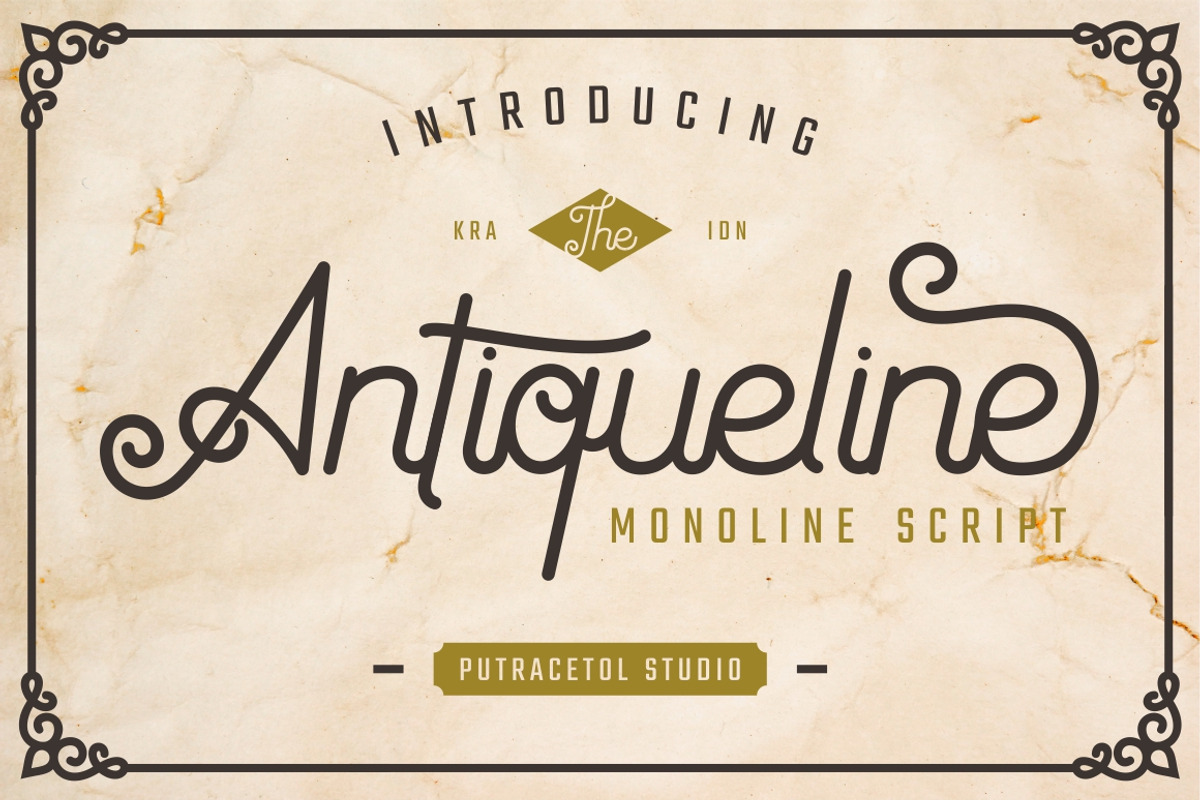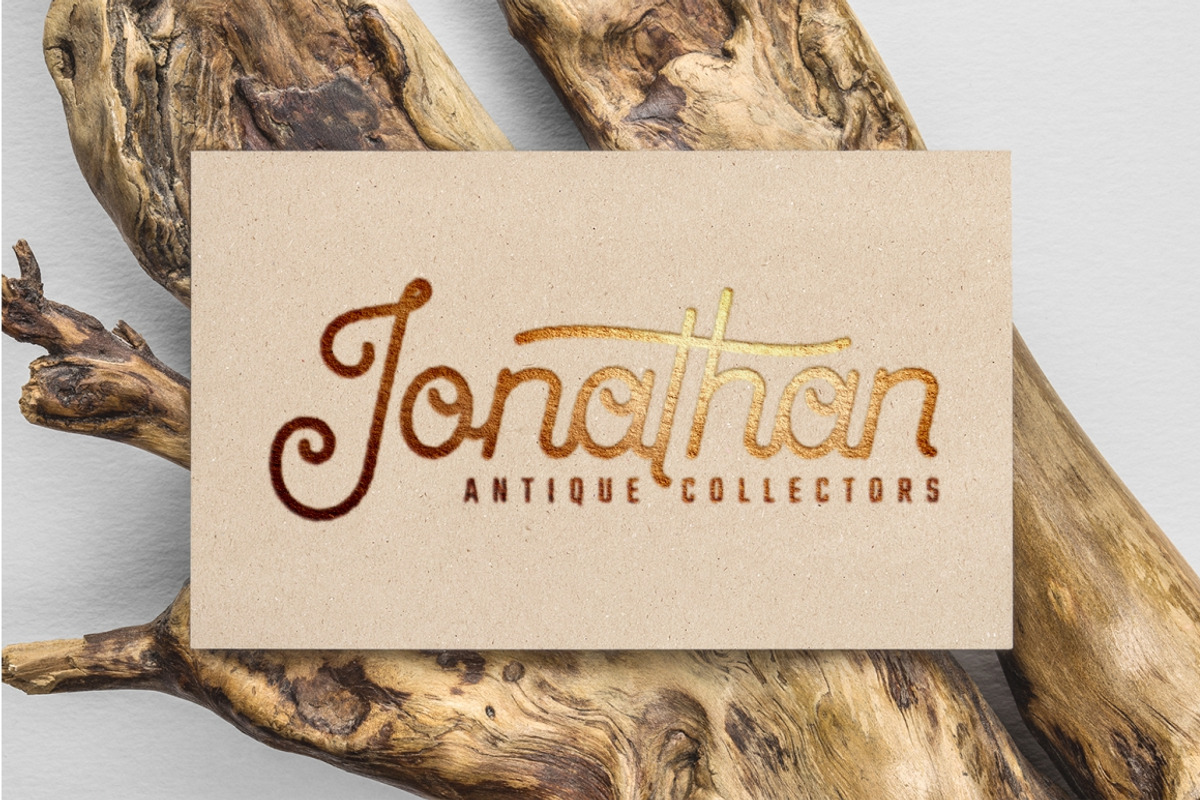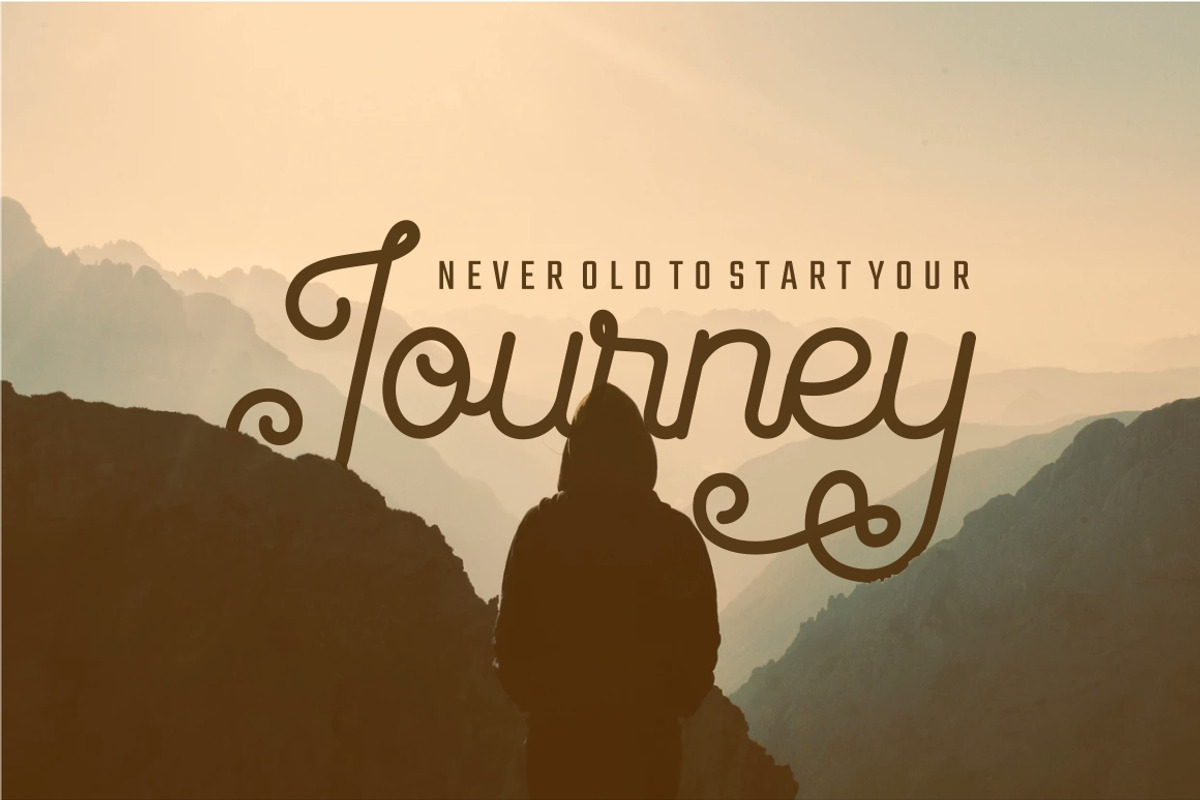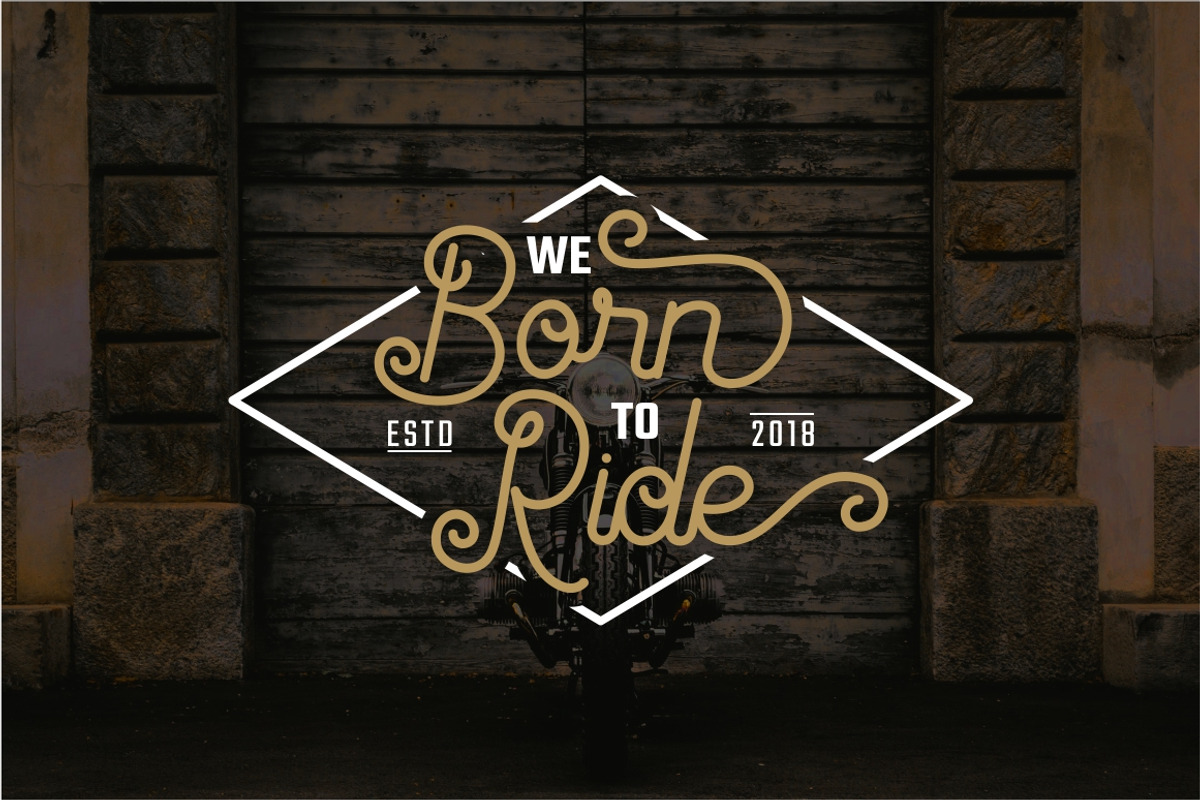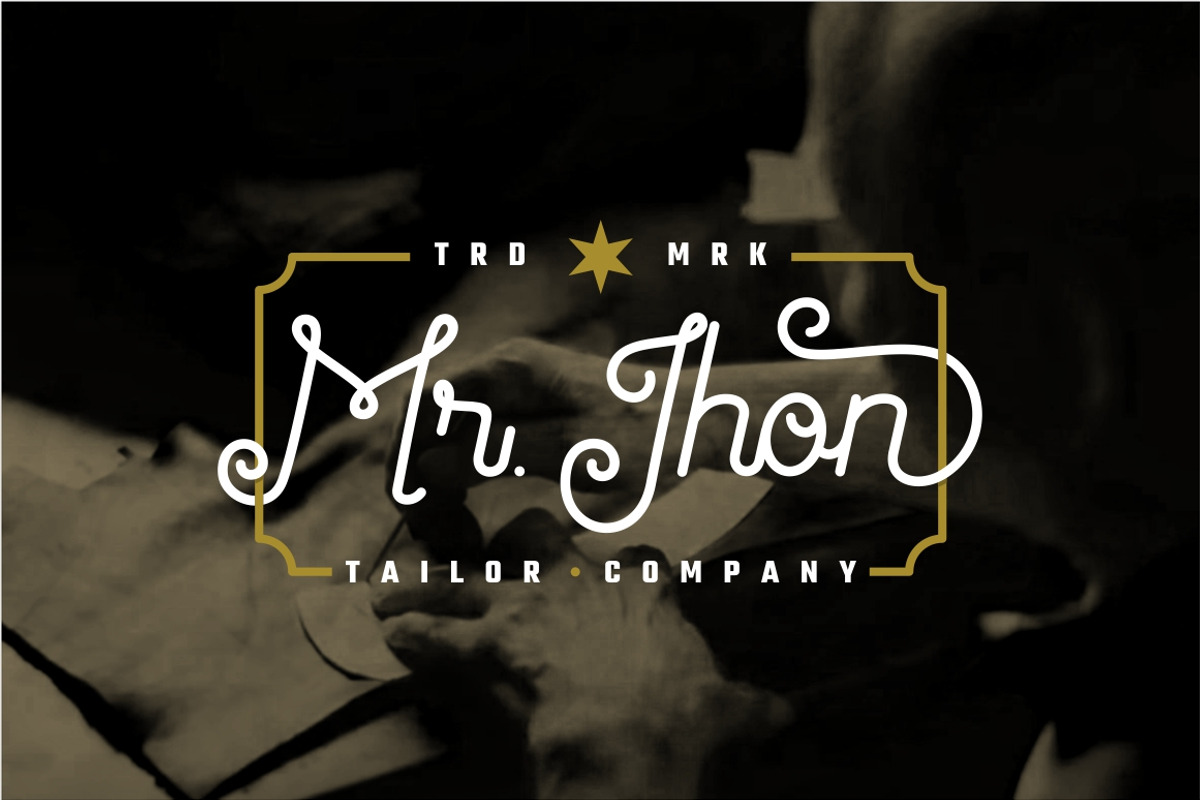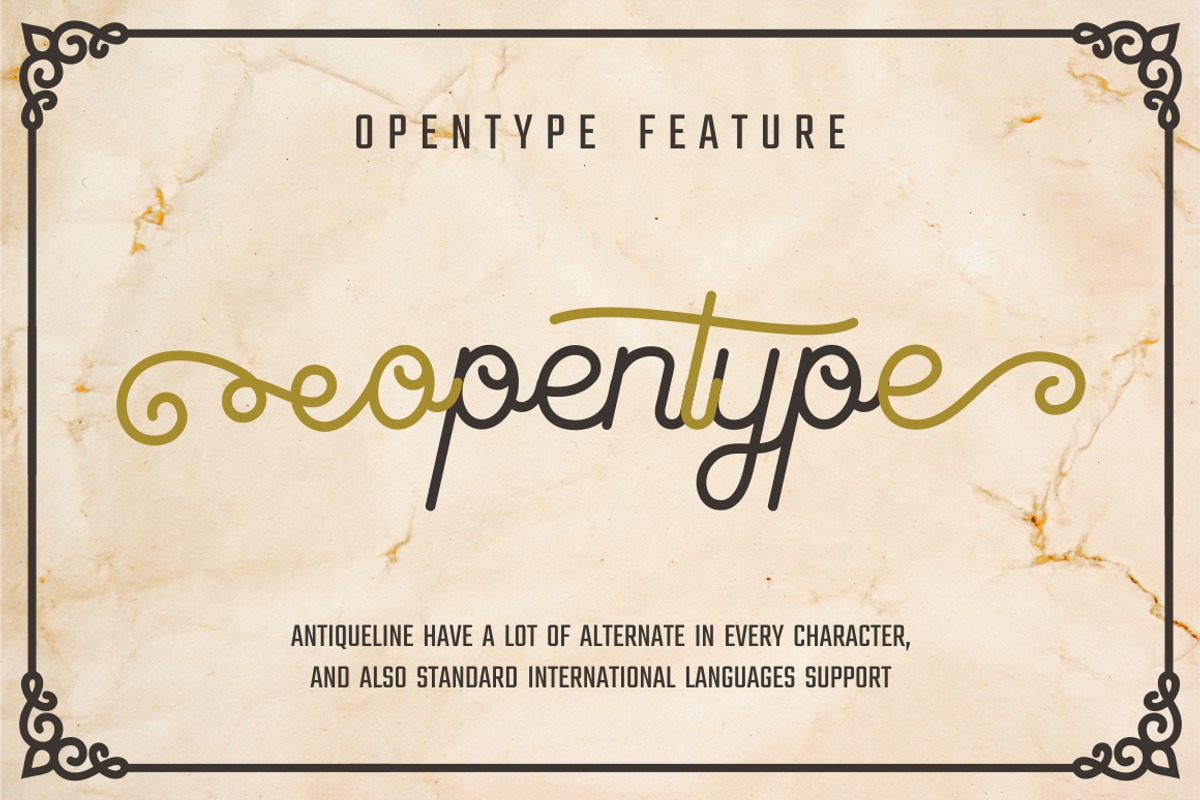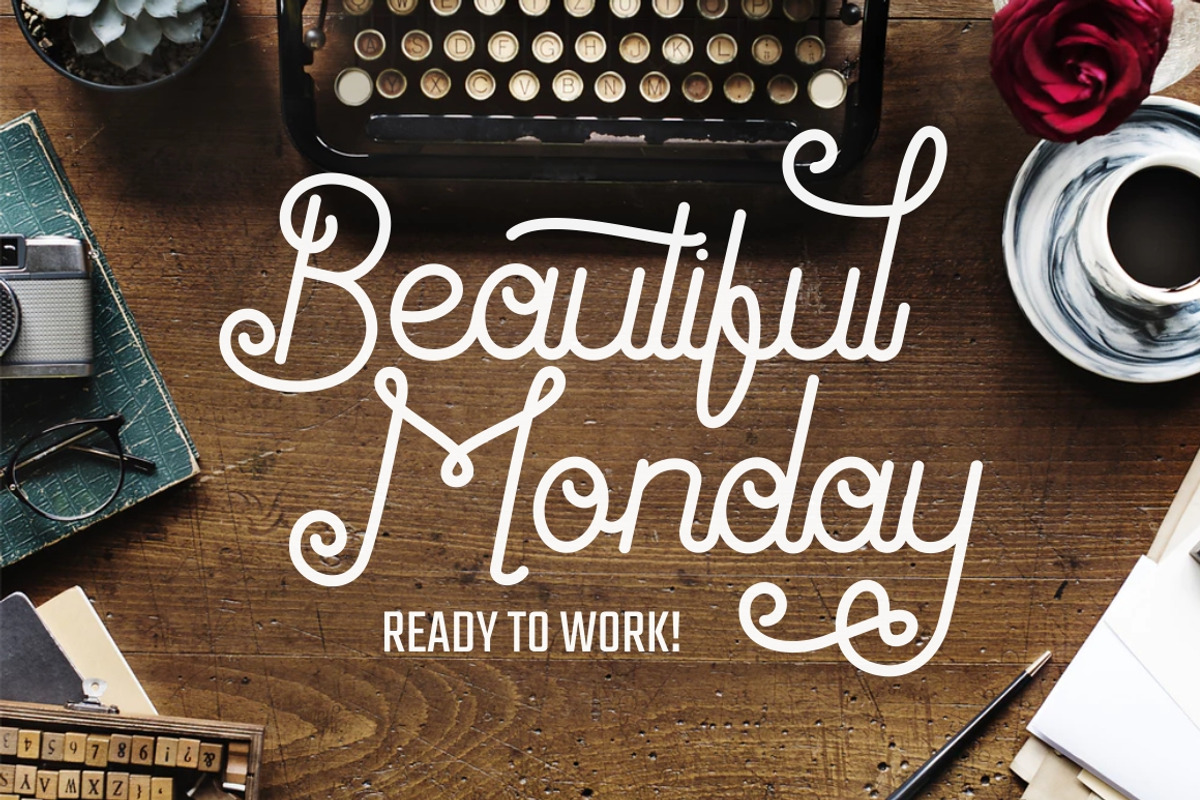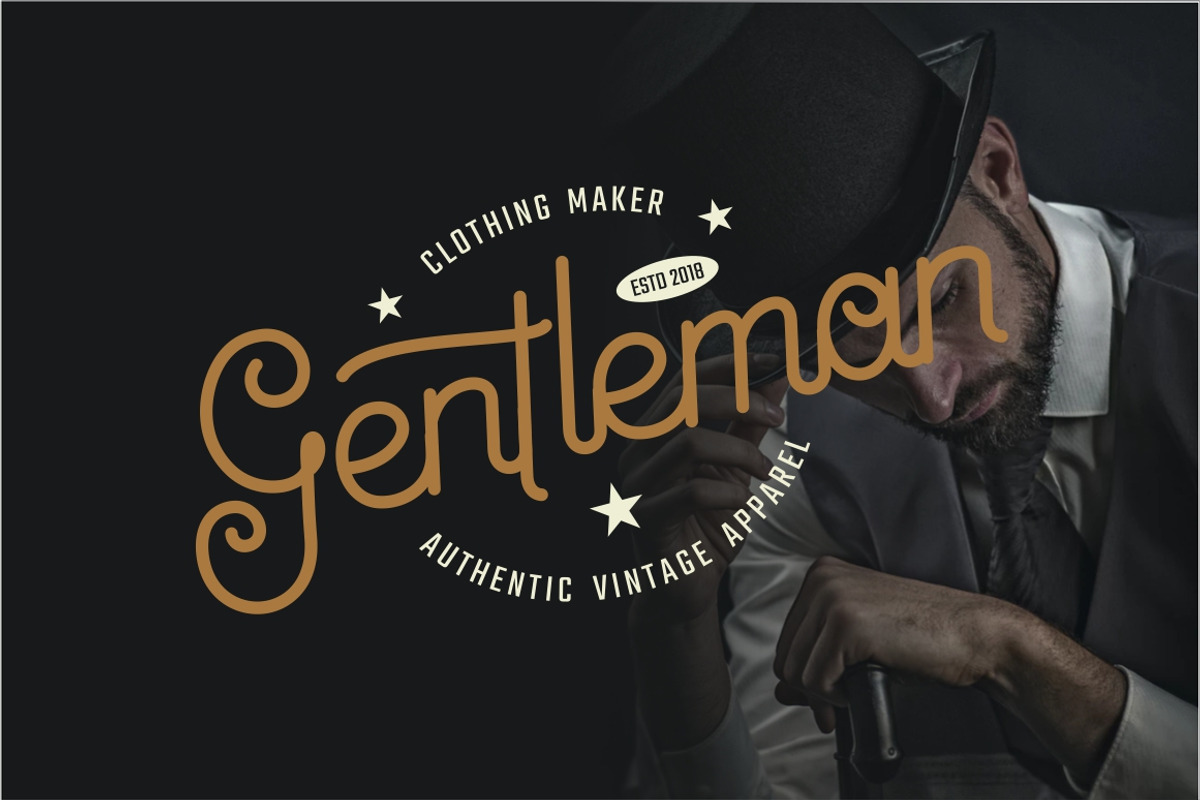
Antiqueline - Monoline Typeface
Antiqueline is a unique monoline typeface. So Antique, so classic, so retro ... You can use this font for making an awesome logo, branding, letterhead, invitations,quote, print, card clothing brand, vintage looks,and so much more!. Antiqueline contain ligatures and so many alternate. This font is also support multi language. To access the alternate glyphs, you need a program that supports OpenType features such as Adobe Illustrator CS, Adobe Photoshop CC, Adobe Indesign and Corel Draw.
Multilanguage Support.
- Antiqueline contain ligatures and so many alternate.